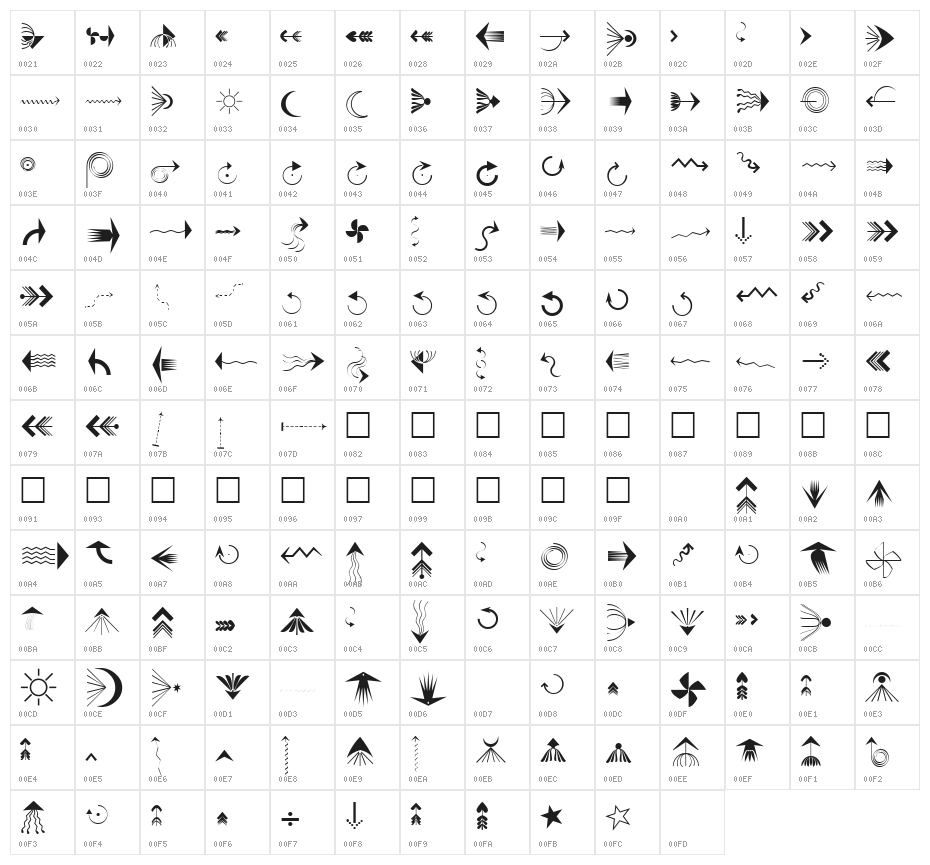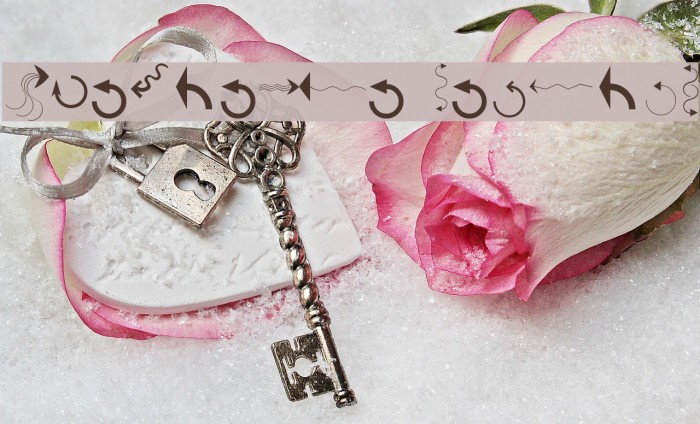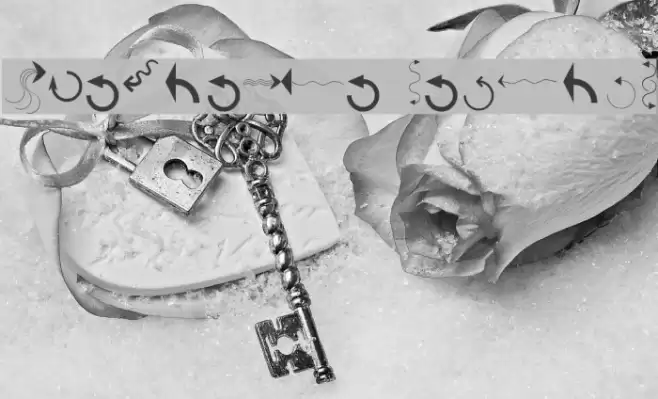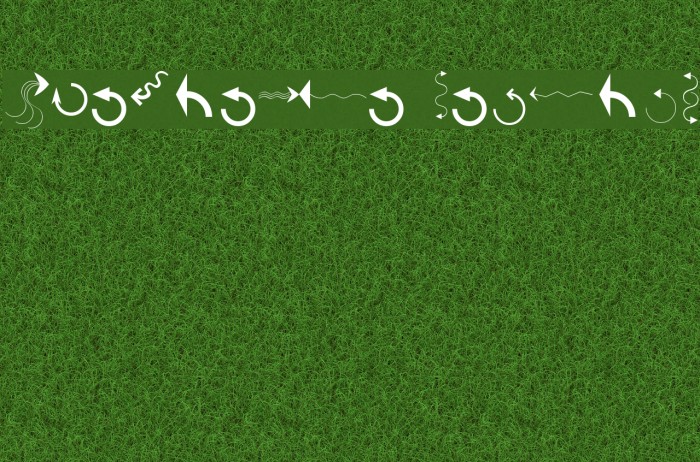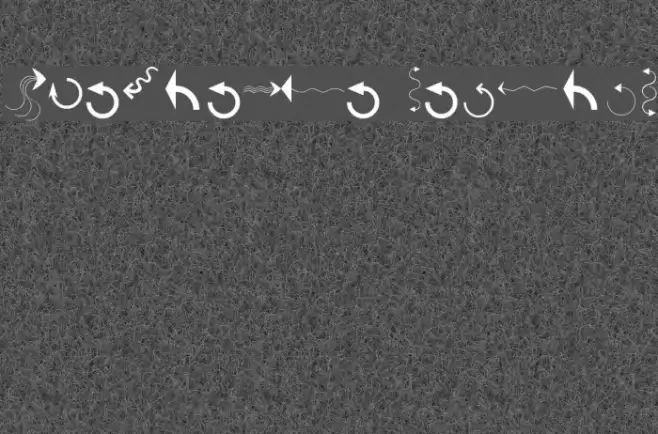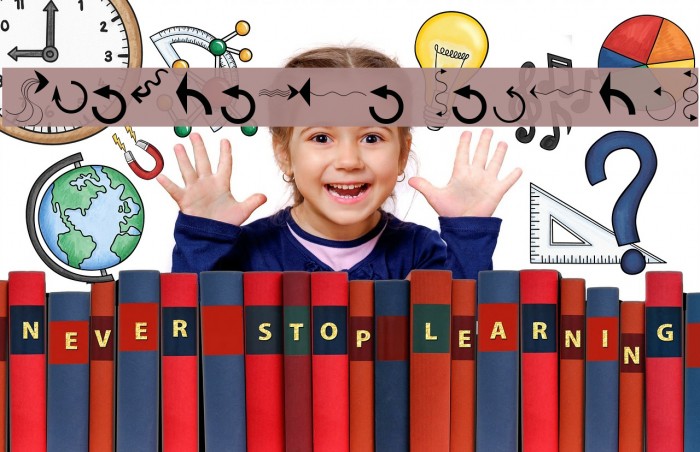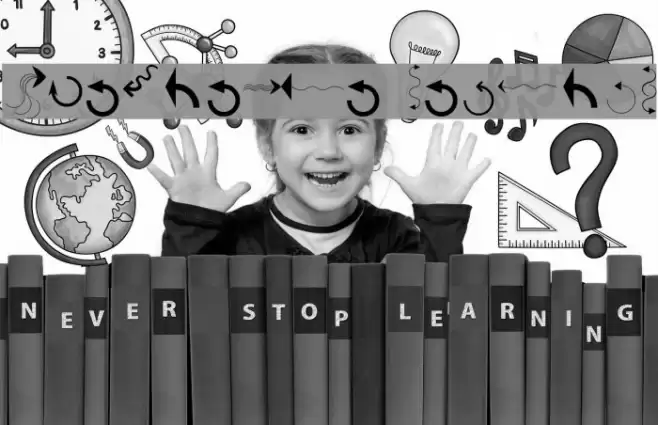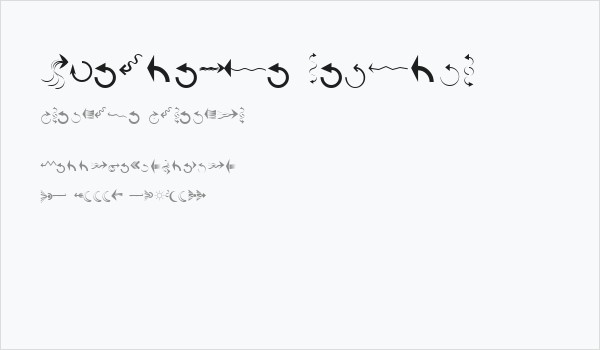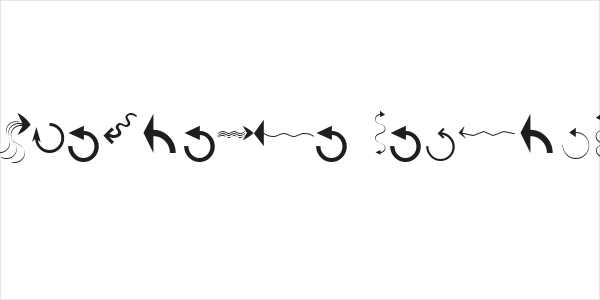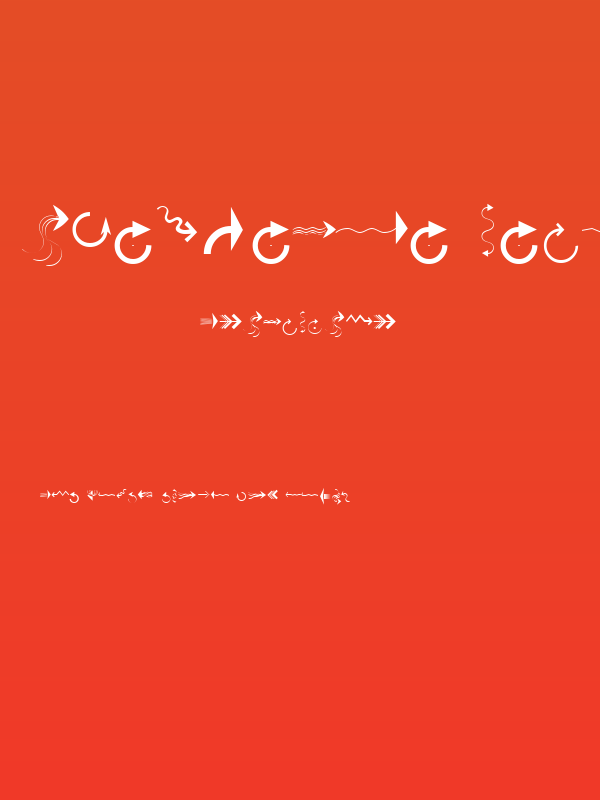
PfeileOne Regular Font
PfeileOne Regular Description
This design features a diverse collection of arrow symbols and decorative elements, each with unique styles and orientations. The arrows vary from simple, clean lines to more intricate designs with curves, waves, and additional embellishments. Some arrows incorporate geometric shapes, while others include organic, flowing lines. The variety in design allows for versatile use in creative projects, providing both functional direction and aesthetic appeal. The symbols are bold and distinct, making them suitable for attention-grabbing applications.
| Use Case | Logos, Icons, Decorative elements |
| Proposed Projects | Ideal for graphic design projects, infographics, navigation icons, and creative presentations. |